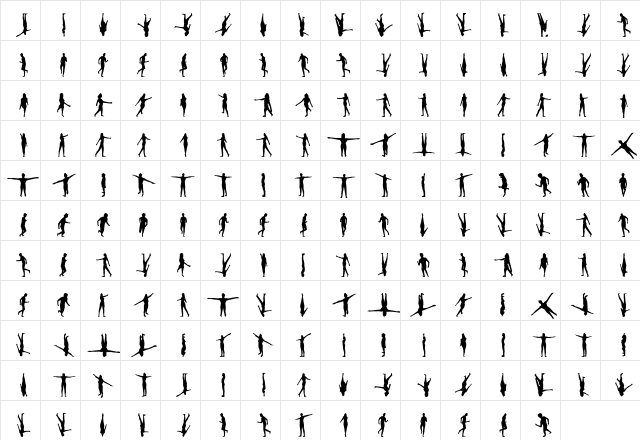
AIHeSheIt Regular Font Preview
AIHeSheIt Regular
Design Context for AIHeSheIt Typeface
AIHeSheIt is a composed and adaptable typeface that performs quietly and consistently across a wide range of design contexts.